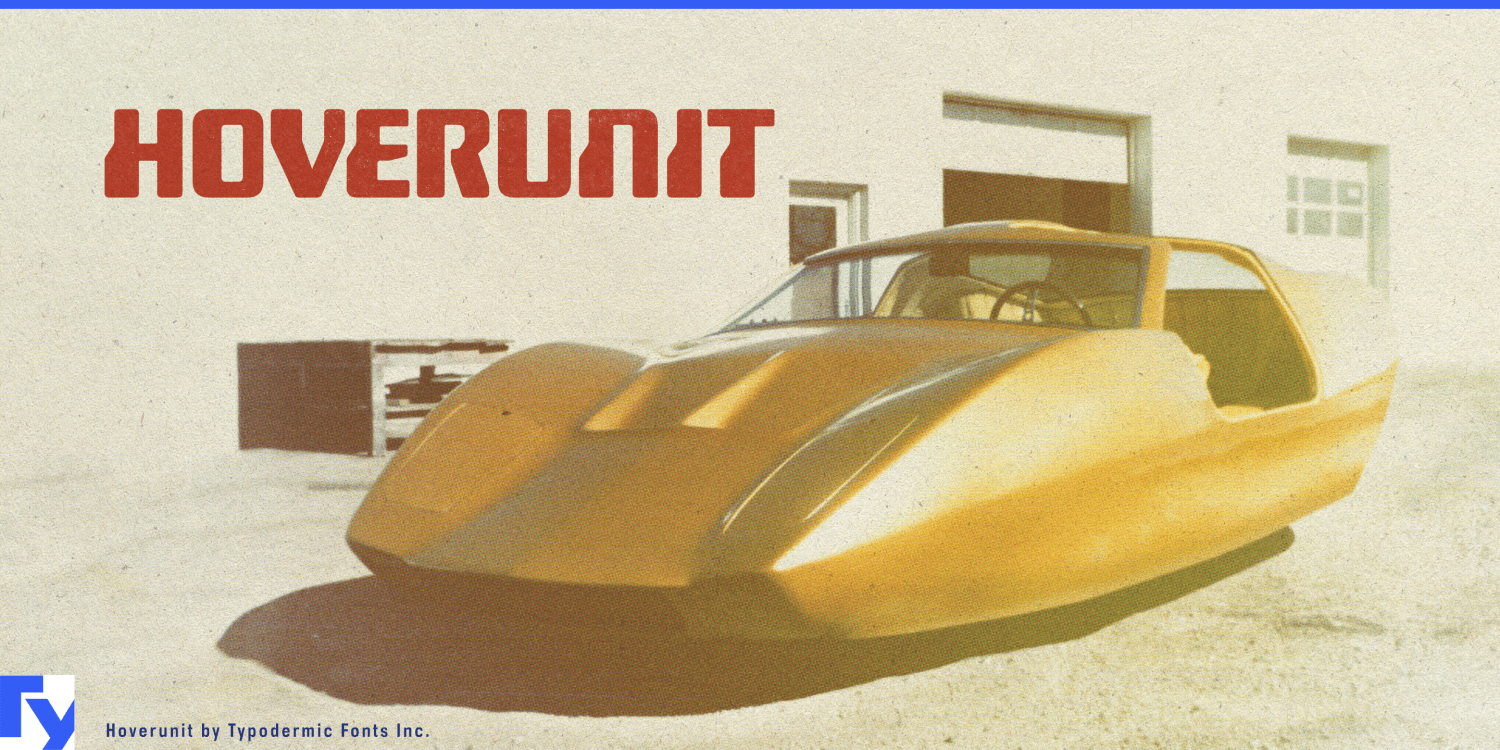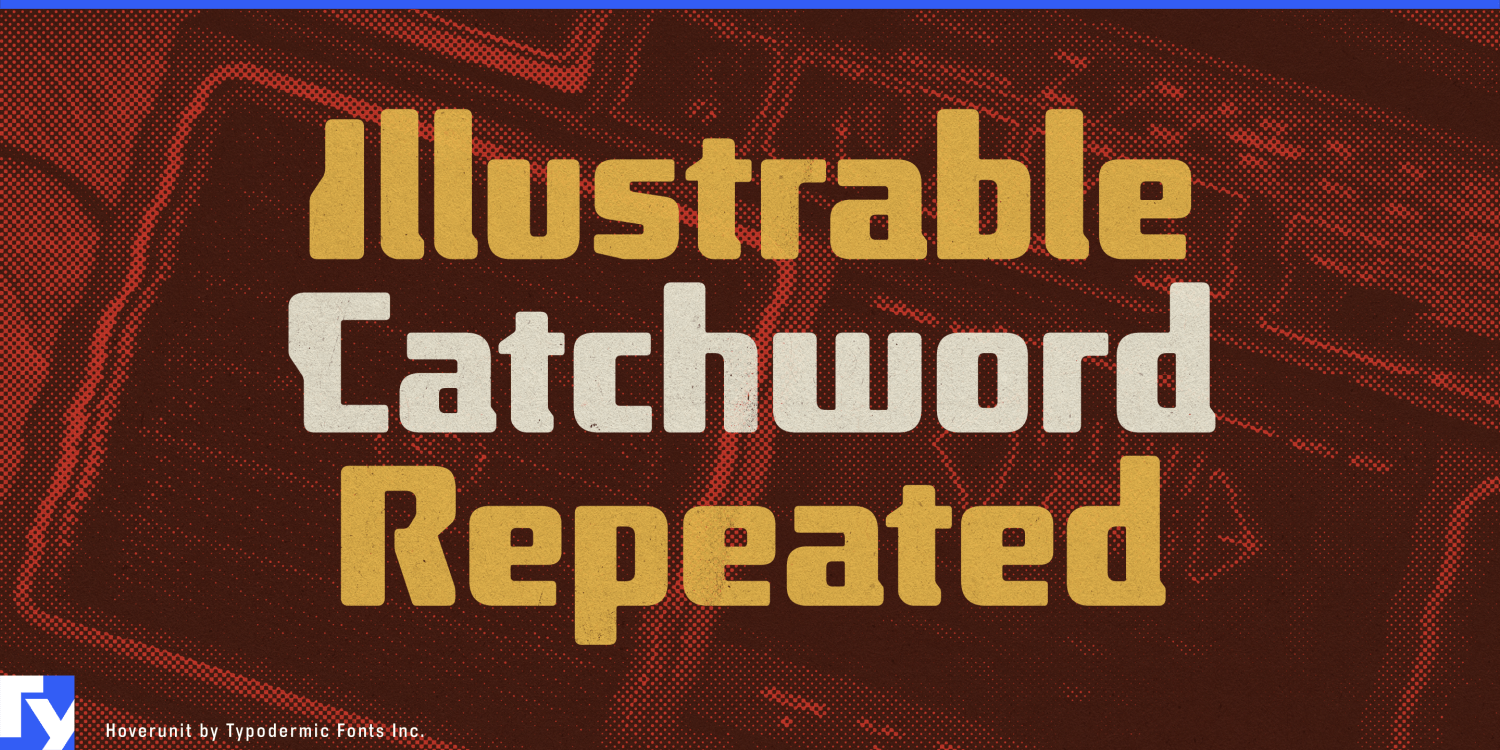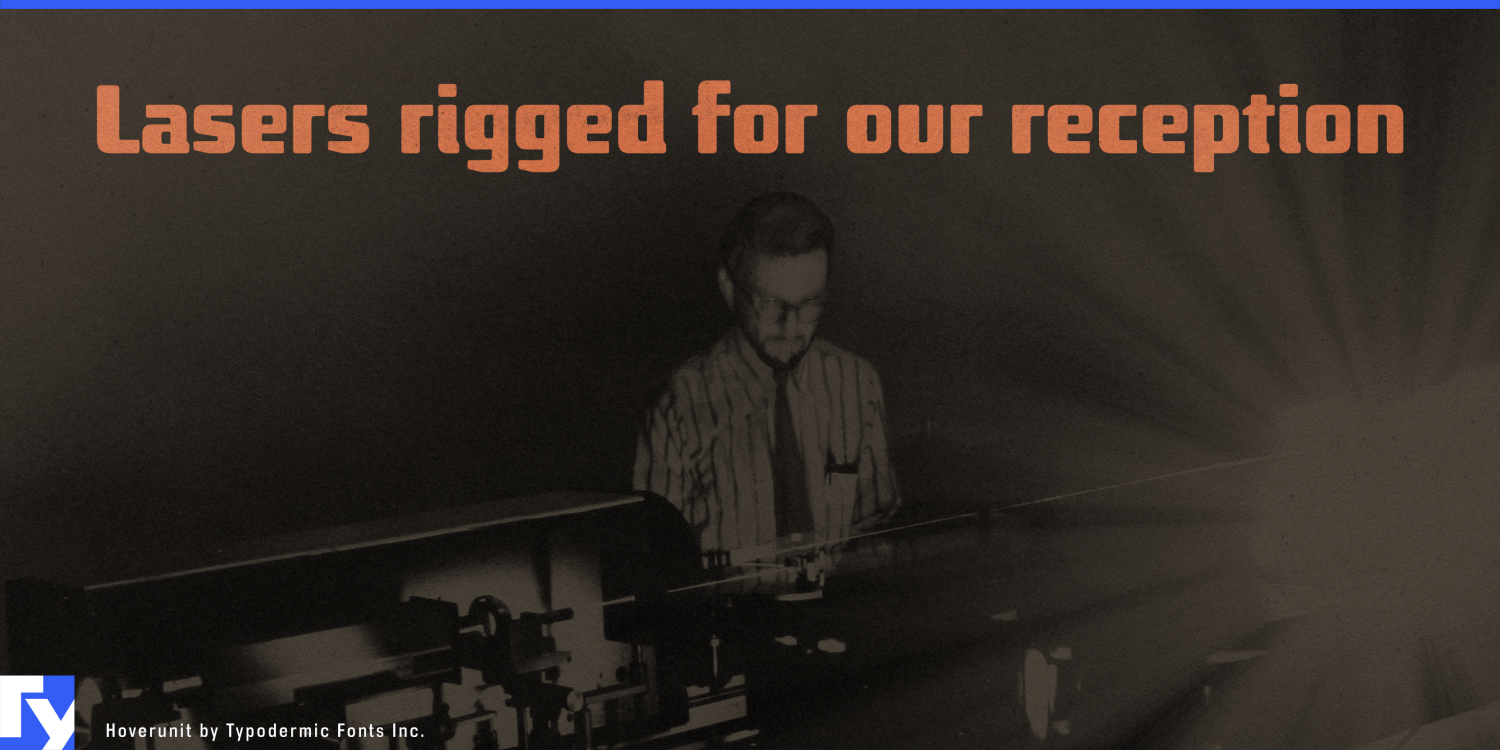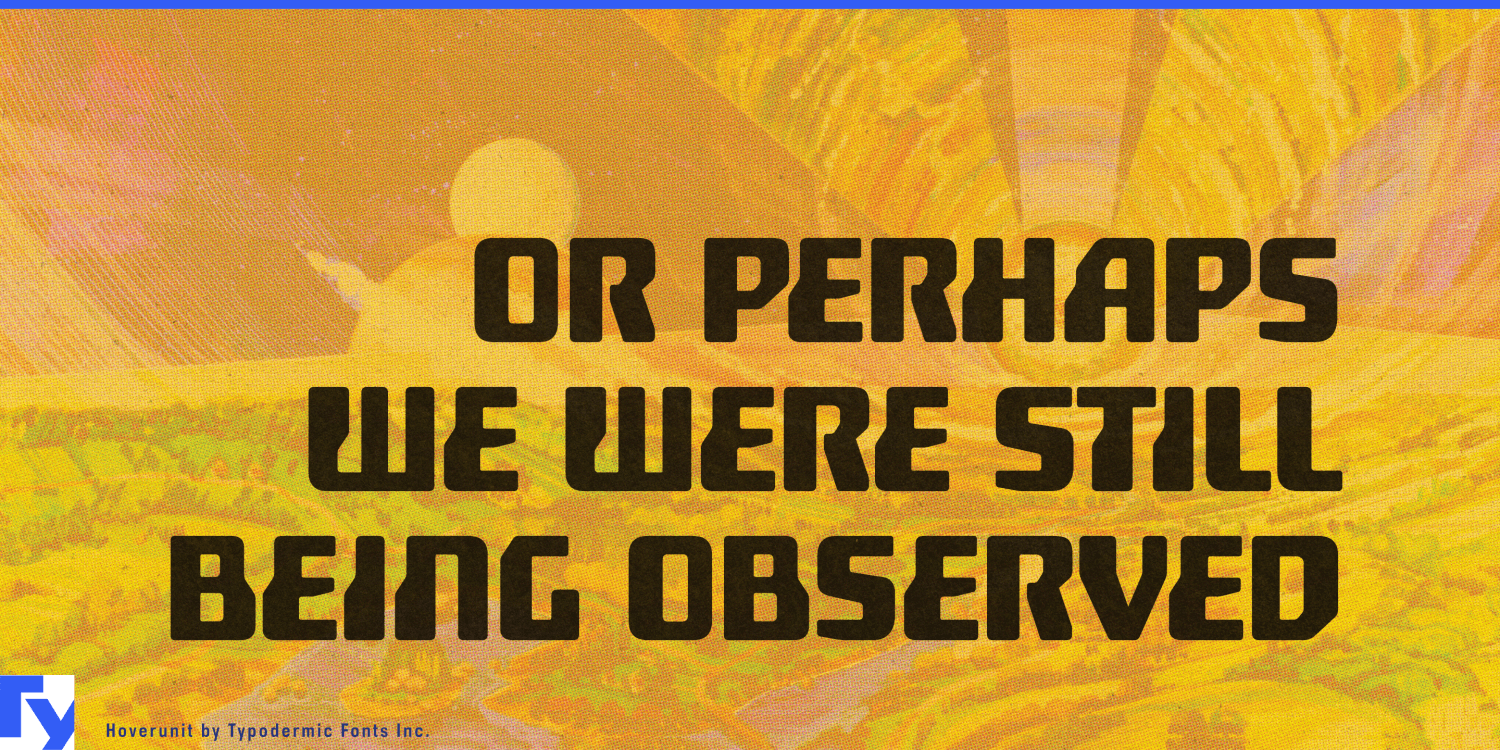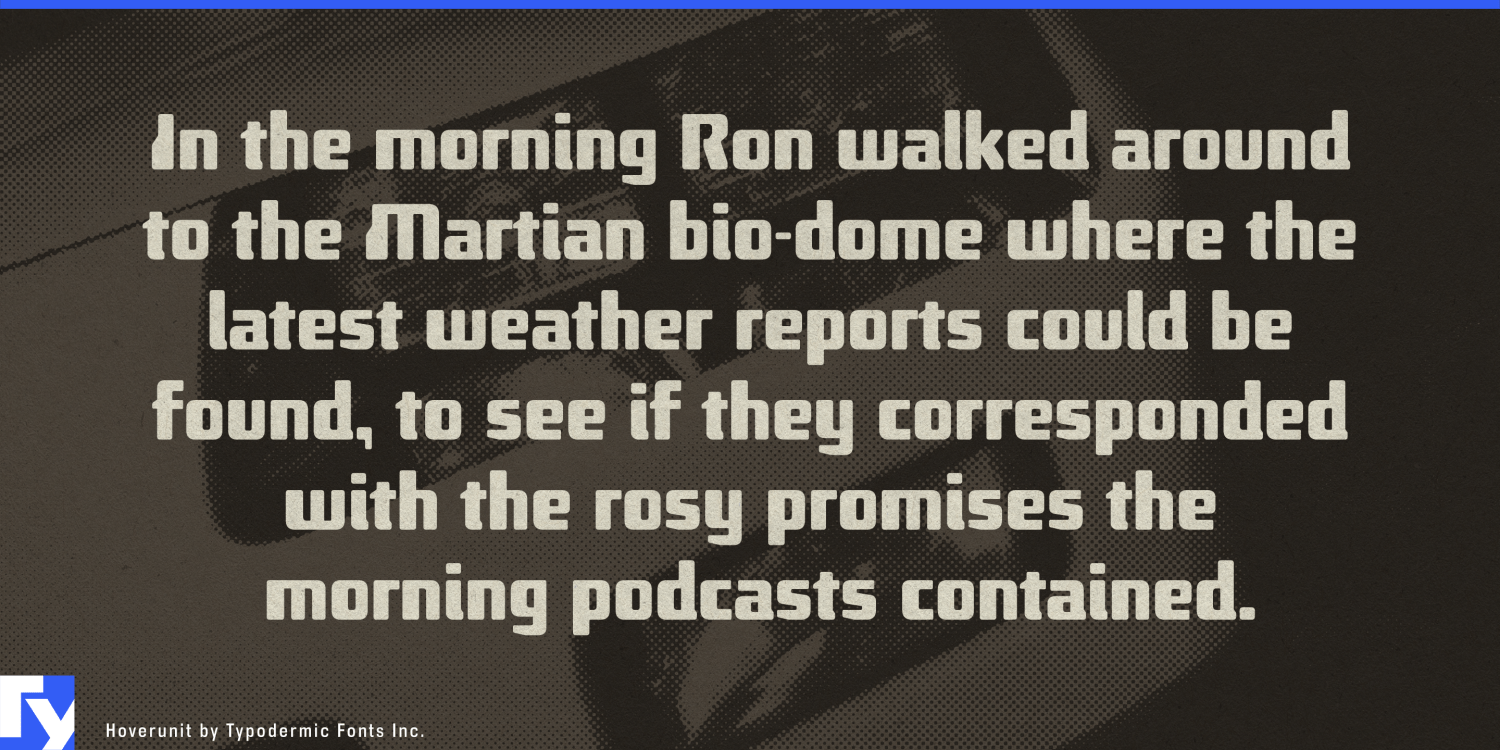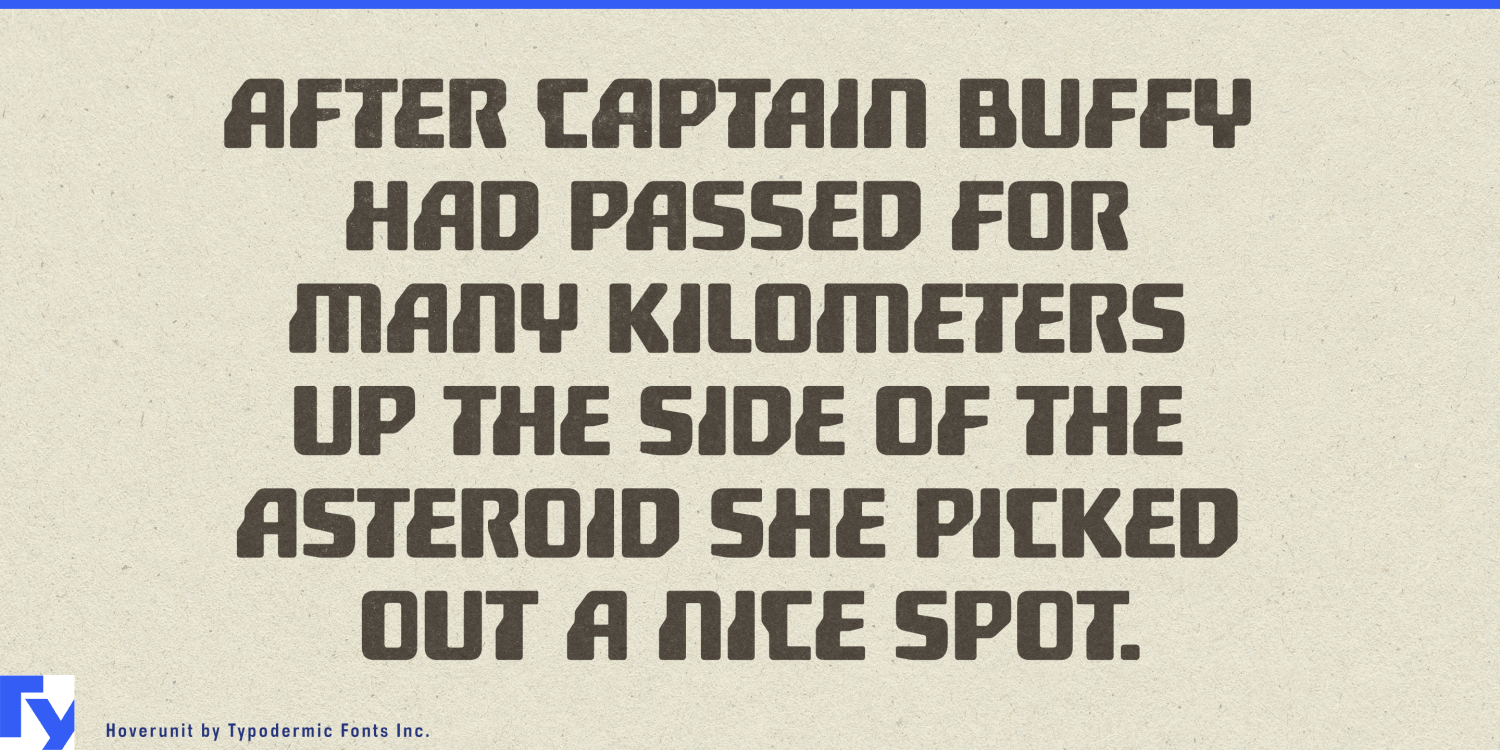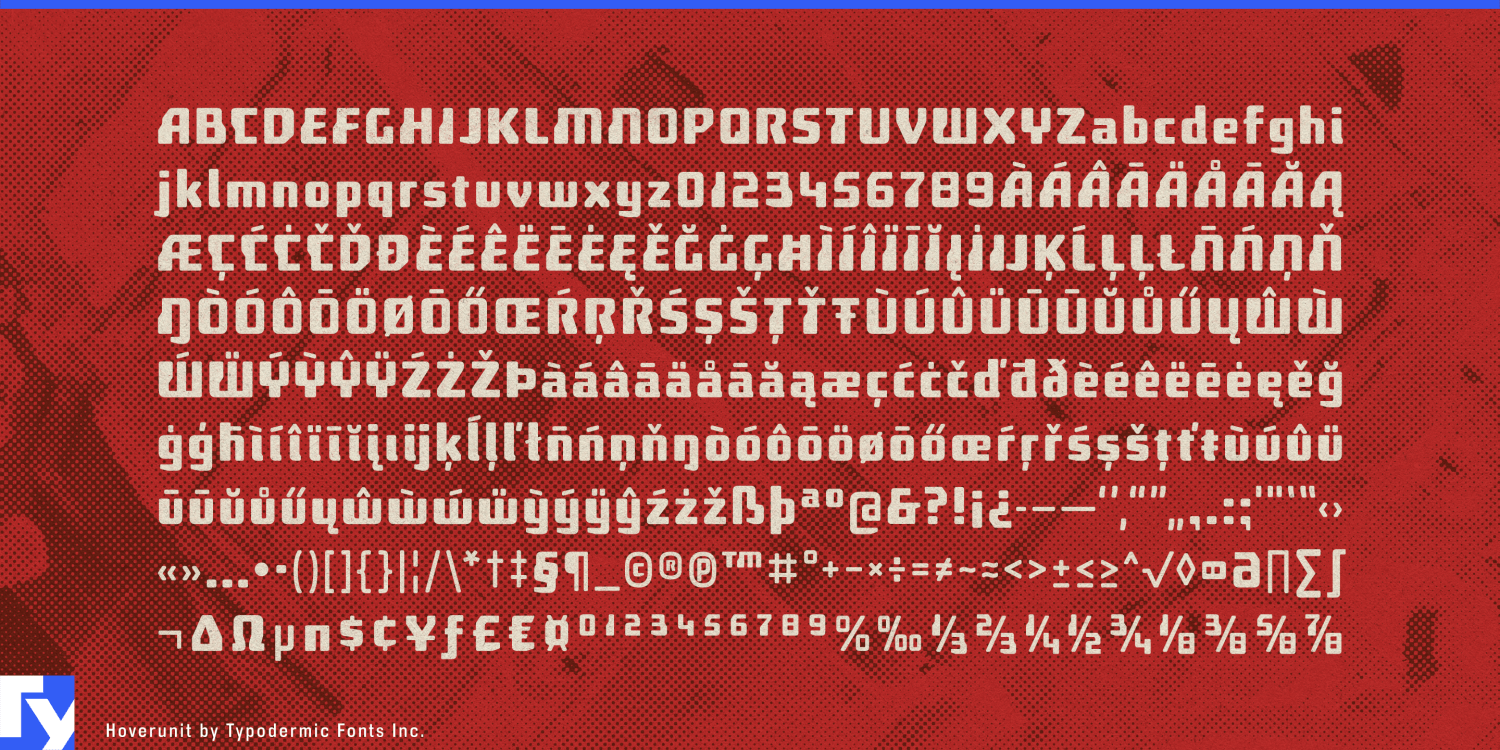
Hoverunit
Buy NowHoverunit takes the strange construction logic of 1960s MICR lettering and turns it into something sturdier, broader, and easier for humans to read. Squared forms, softened corners, and unusual stroke interruptions retain the sense that the alphabet was designed according to machine requirements, but Hoverunit is not trying to reproduce a cheque-reading system. The MICR influence supplies the engineering DNA; the rest is built for display typography.
That combination gives Hoverunit a natural place on products designed to survive rough treatment. Rugged watches, field instruments, portable electronics, flashlights, power banks, protective cases, outdoor equipment, and worksite gear all need visible typography for model names, series numbers, modes, capacities, and specifications. Hoverunit gives those details an engineered character without making them difficult to decipher. It looks less like software than something moulded into the housing.
Tools and workshop products offer the same opportunity. Power-tool cases, batteries, welding equipment, replacement parts, filters, work lights, fasteners, and automotive components often build their visual hierarchy around product families, model designations, sizes, voltages, capacities, or duty ratings. Hoverunit makes that information feel like part of the equipment rather than decoration applied afterward.
Its ruggedness does not depend on distress, military stencils, or simulated grime. The effect comes from construction. The letters are compact, substantial, and deliberately odd in places, with enough structural excess to suggest they could take a knock. That makes Hoverunit equally plausible on clean contemporary products where durability is part of the appeal.
Off-road and field equipment open another useful territory. Utility vehicles, recovery gear, expedition cases, emergency radios, surveying instruments, environmental monitoring equipment, and portable scientific hardware all rely on short identification systems. Equipment numbers, sensor labels, kit names, vehicle markings, and section headings can adopt Hoverunit’s machine-oriented appearance while remaining comfortably readable at a glance.
The MICR connection can also be used more literally in projects about banking, automated data processing, financial systems, or mid-century technology. Historical exhibits, documentary graphics, fictional payment systems, and archival displays can draw on the source without pretending Hoverunit itself is an authentic machine-readable MICR face.
Hoverunit works best as identification typography: product names, model numbers, package callouts, equipment categories, decals, headings, and short technical phrases. It has the encoded look of lettering intended for machines, but the rugged readability of lettering intended to keep working around them.